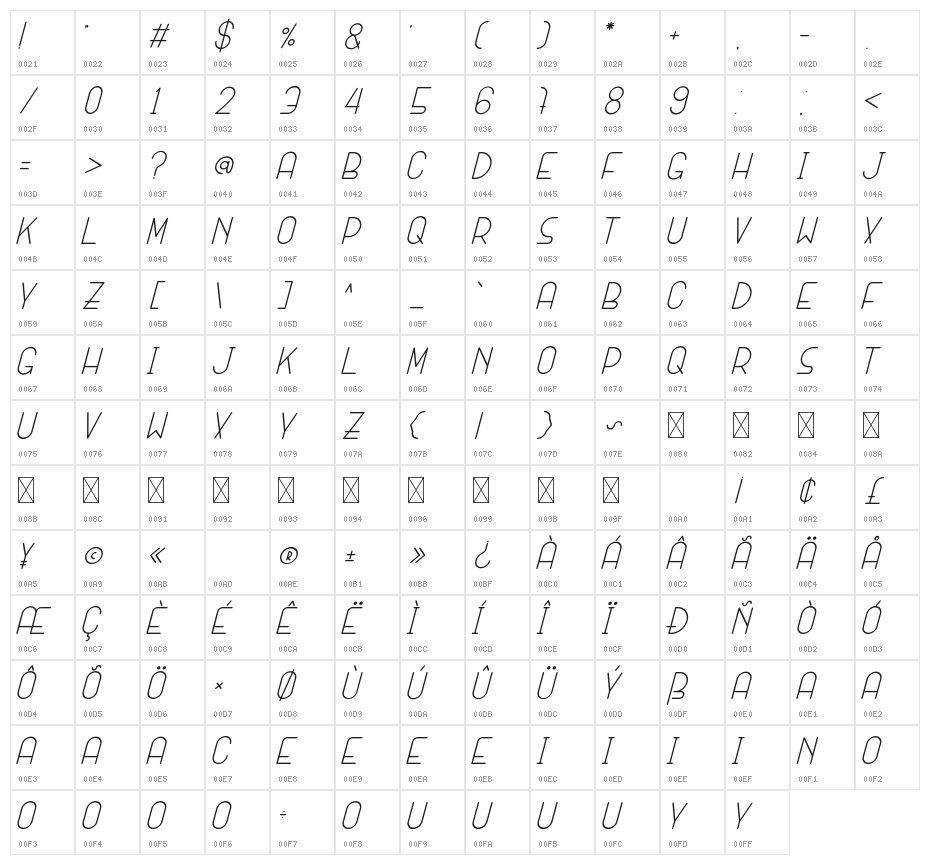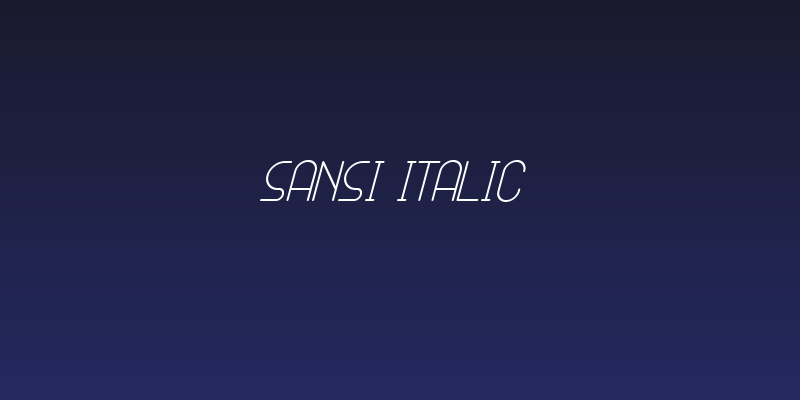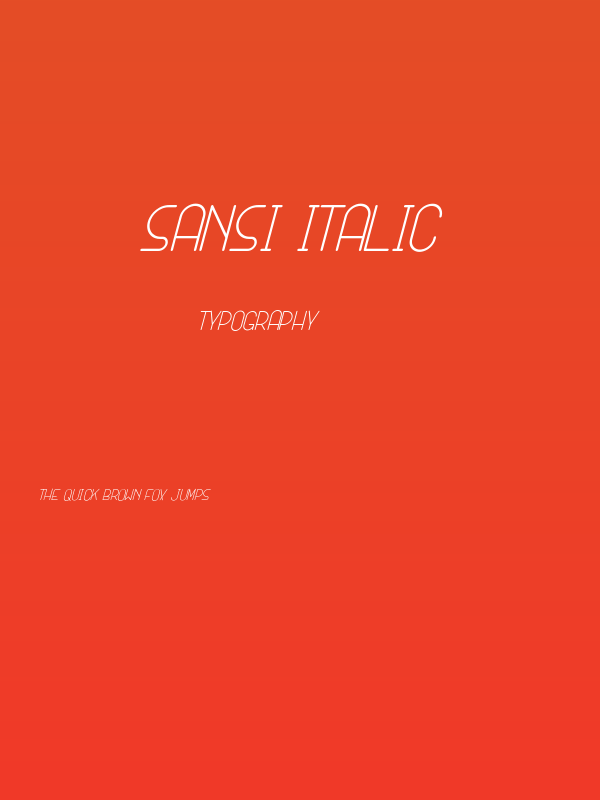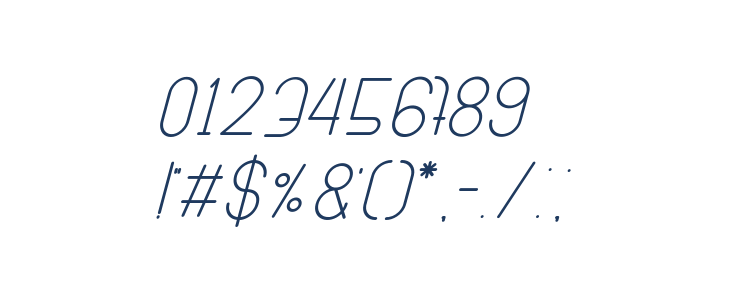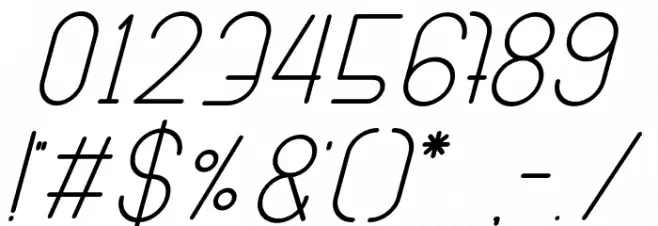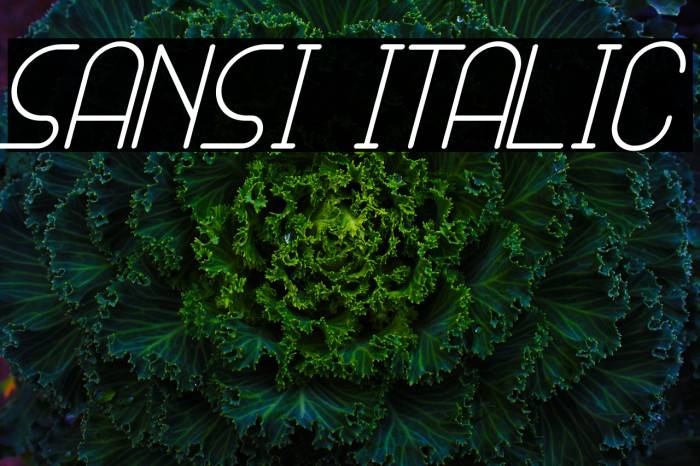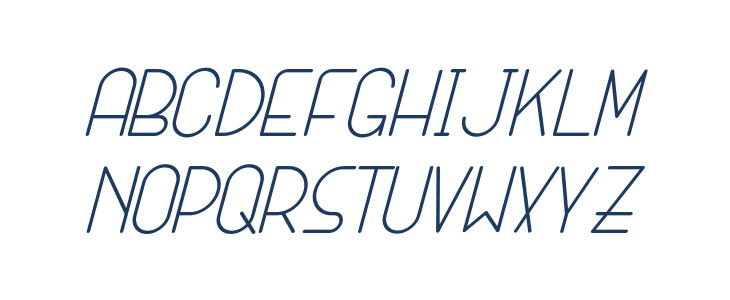
SANSI Italic Font
SANSI Italic Description
This font features a sleek, italicized design with a modern and minimalistic aesthetic. The characters are elongated and slightly slanted, giving a sense of motion and elegance. The strokes are consistent in thickness, providing a uniform appearance across all characters. The uppercase and lowercase letters maintain a cohesive style, with smooth curves and sharp angles. Numbers and special characters are designed to complement the overall look, ensuring readability and style. The font's clean lines and contemporary feel make it versatile for various design applications.
| Proposed Projects | Ideal for branding, fashion magazines, modern websites, and creative posters. |